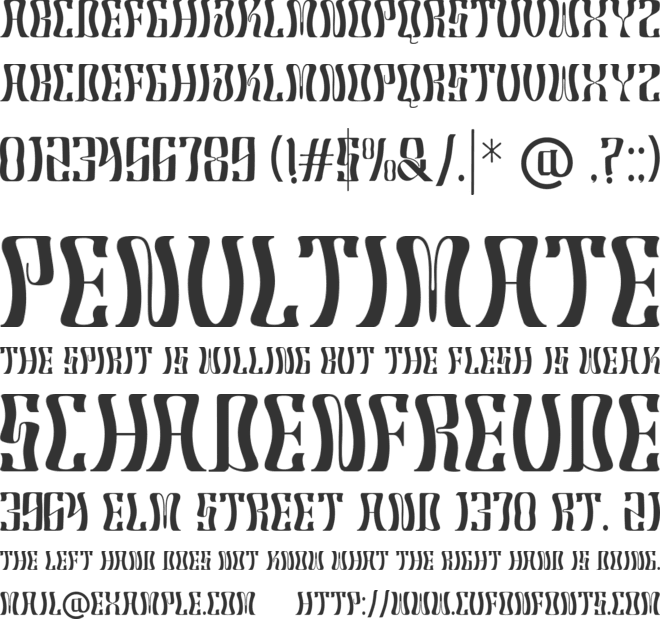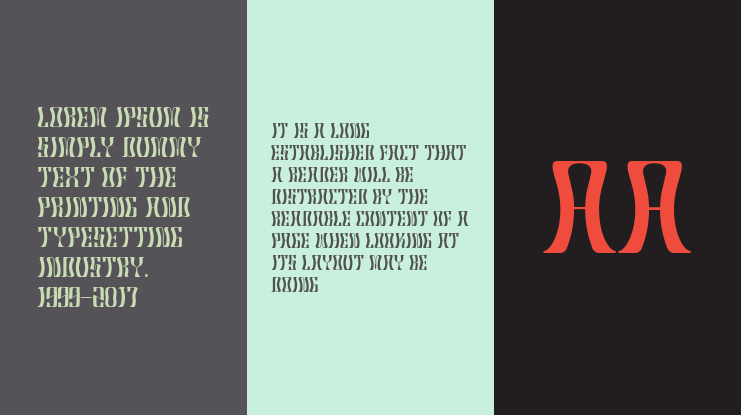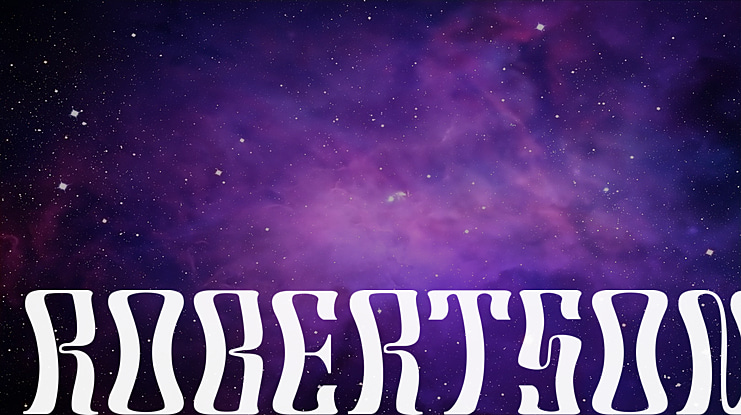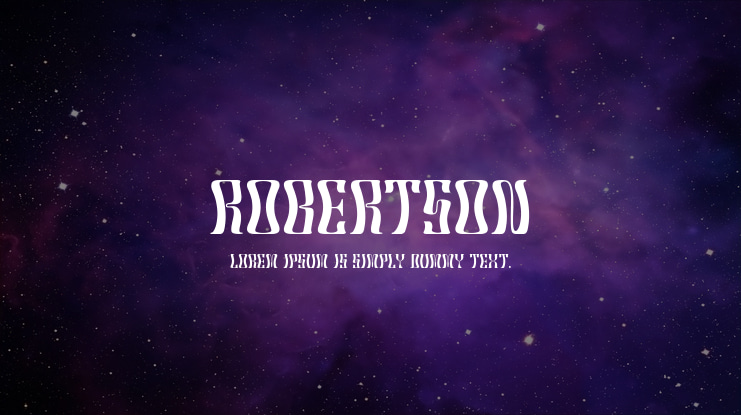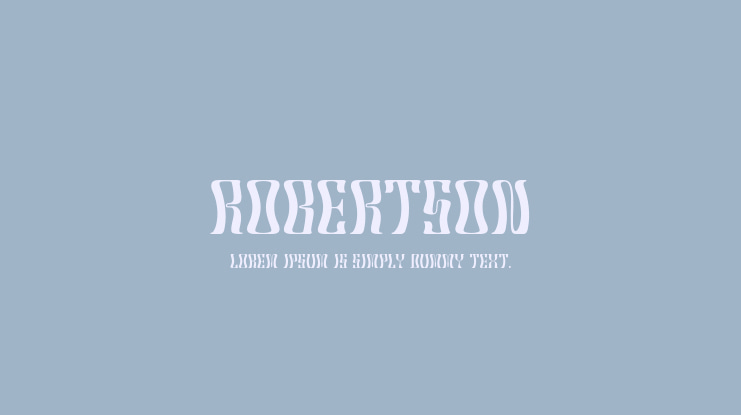
Robertson Font Family
Robertson typeface is a modern and elegant display font. Designed using typographic anatomy and has very strong characteristics and support multilingual.